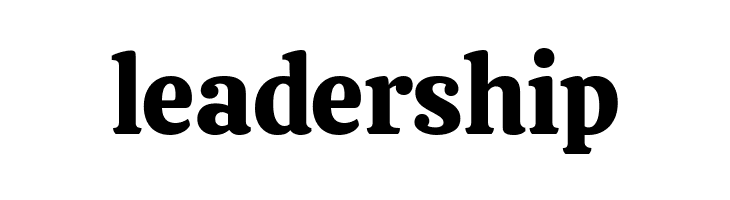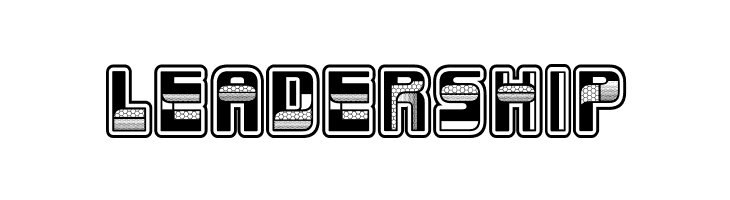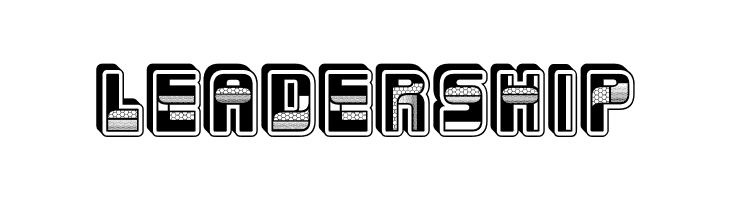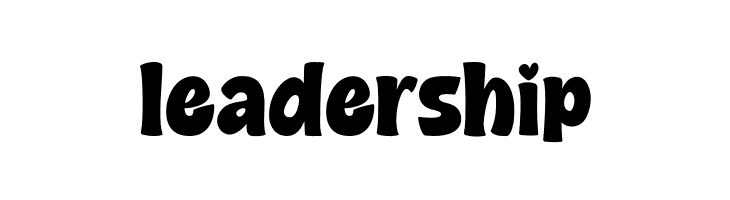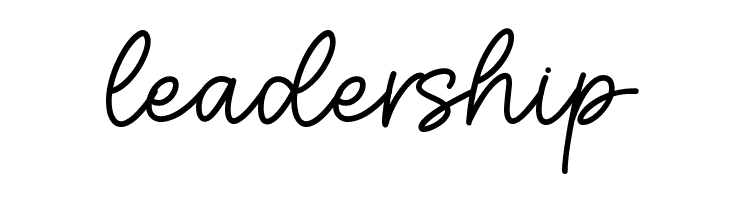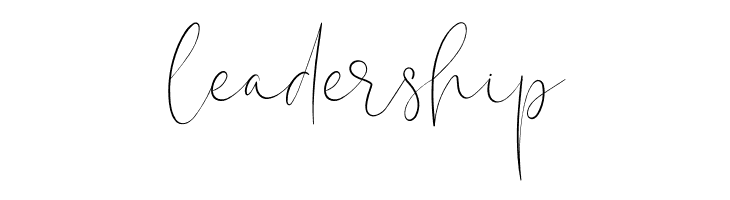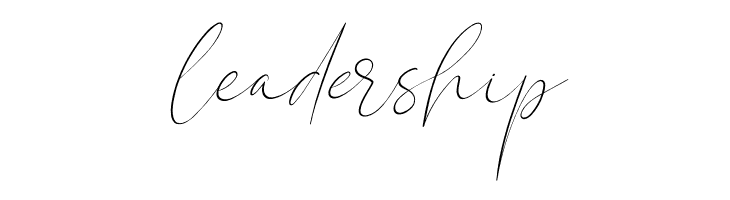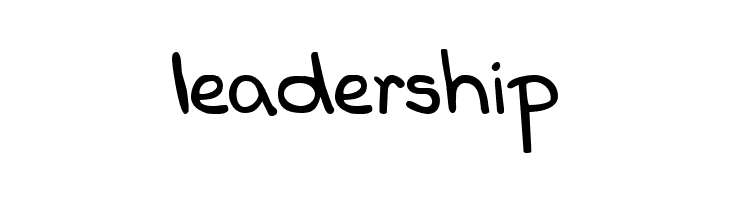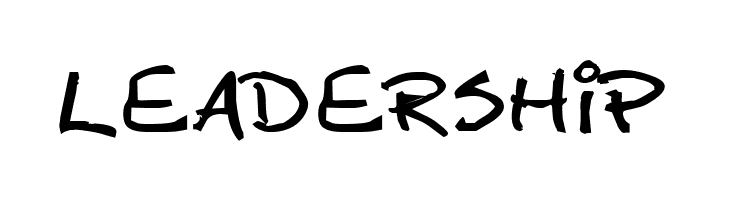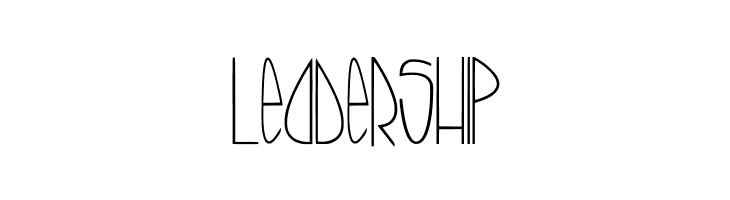
A playful, hand-drawn font with irregular, whimsical characters.
A dynamic and expressive handwritten font with fluid strokes and a brush-like texture.
A whimsical, handwritten-style font with flowing, interconnected letterforms.
A flowing, cursive font with elegant loops and swashes, offering a sophisticated and artistic look.
A fluid, elegant script font with a dynamic and sophisticated style.
An elegant, cursive script font with flowing, connected strokes.
A graceful and elegant handwritten script with fluid, flowing letterforms.
A casual, flowing handwritten font with smooth, continuous strokes.
Elegant handwritten script font.
A bold, serif font with strong strokes and a classic, impactful design.
An elegant script font with flowing, intricate swashes and loops.
An elegant, flowing script font with interconnected letters and a sophisticated style.
A fluid and elegant script font with a handwritten calligraphy style.
A bold, modern sans-serif font with strong geometric shapes.
A modern, cursive font with a playful and elegant style.
A bold, flowing script font with elegant, cursive letterforms.
A playful, bold font with curvy and dynamic letterforms.
A bold, playful font with decorative elements and a whimsical style.
A playful, bold font with a hand-drawn, whimsical style.
A bold, impactful typeface with a strong, geometric style.
A bold, organic font with irregular, fluid strokes and a playful, artistic style.
A bold, 3D font with a textured interior and retro arcade style.
A playful and expressive handwritten font with fluid strokes and dynamic curves.
A bold, decorative font with a distressed, artistic texture.
A bold, decorative font with textured, patterned interiors and thick outlines.
A dynamic, brush-style font with bold, expressive strokes.
A bold, cursive script font with dynamic, sweeping strokes.
A bold, hand-drawn font with an energetic and expressive style.